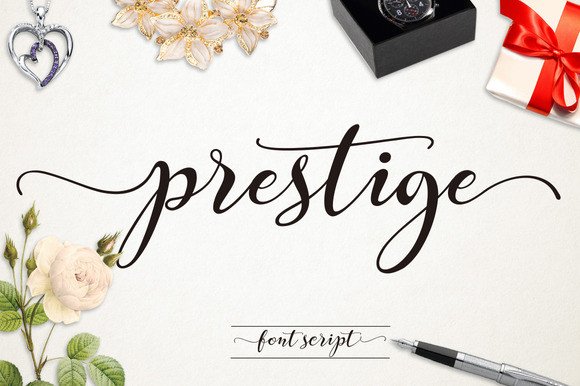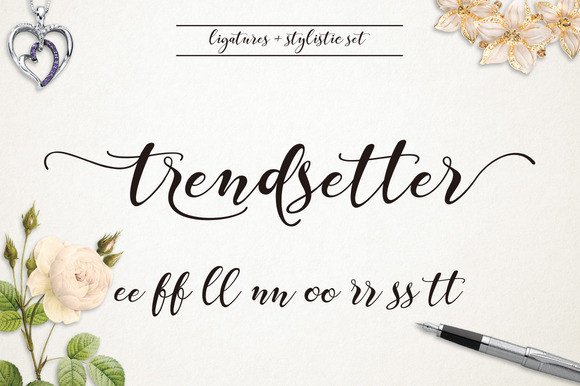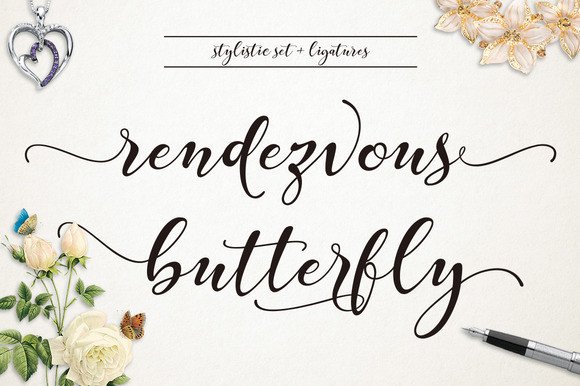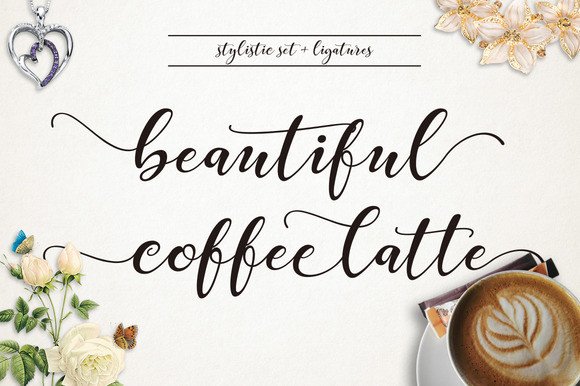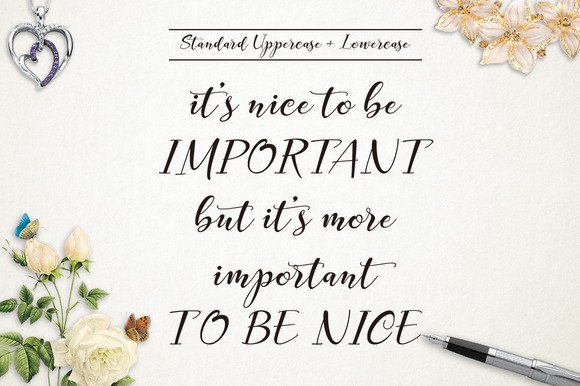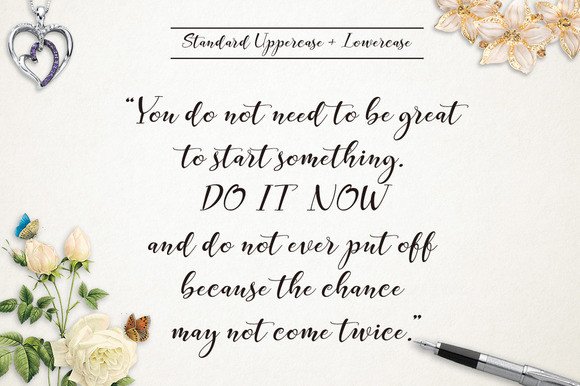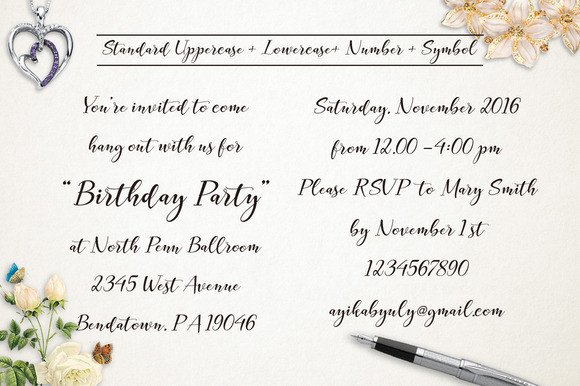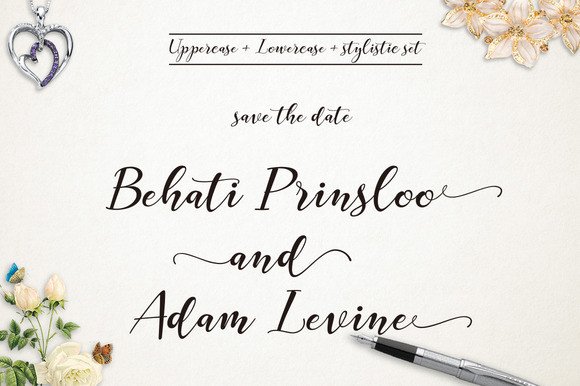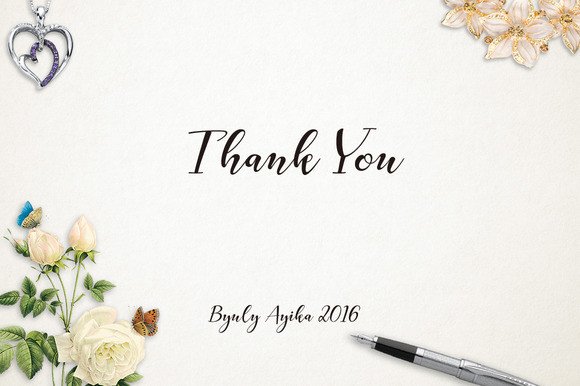
Prestige Font
About Prestige Font
Prestige is a beautiful handwritten font with a very unique feel to it.
The font contains many extra characters with long endings and beginnings. Great for displaying beautiful names on wedding invites and birthday cards, decorating signs for the nursery or home, or whenever you want to decorate smaller items.